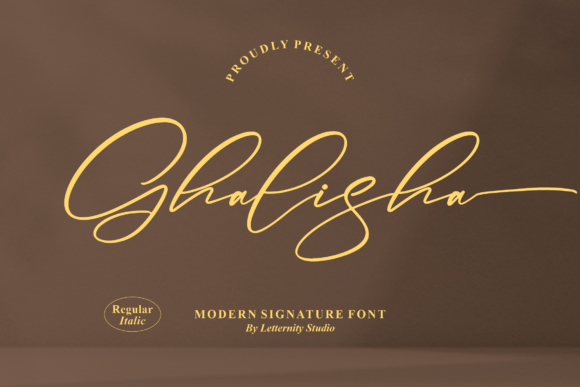
Unleashing the Magic of Ghalisha Font
As a designer, have you ever stared at a blank canvas, waiting for inspiration to strike? You’re not alone. The blank page can be intimidating, but what if it held the key to unlocking a beautiful, high-quality design? For many creatives, the perfect font can be that spark that sets their imagination ablaze.
Enter Ghalisha Font, a free-flowing script font designed to elevate packaging products, invitation cards, flyers, mockups, event posters, and more. This versatile font is perfect for designers who want to add a touch of sophistication and elegance to their work. With its PUA encoding, accessing all the glyphs and swashes is a breeze, giving you the freedom to experiment and push the boundaries of your creativity.
Whether you’re a seasoned pro or just starting out, the Ghalisha Font is an invaluable addition to your design toolkit. Its unique style and versatility make it an essential asset for any designer looking to take their work to the next level.
Ghalisha Font Key Features
- Unique Characteristics: Ghalisha Font features a unique blend of modern and traditional elements, with intricate details and elegant lines, making it suitable for various design projects.
- Language Support: The font supports a wide range of languages, including English, Arabic, and other languages that use the Latin and Arabic scripts.
- Scalability: Ghalisha Font is highly scalable, allowing it to be used effectively in various sizes and resolutions without compromising its quality and readability.
Review of Ghalisha Font
I recently had the chance to work with Ghalisha Font, and I must say it’s a unique and intriguing typeface. Here’s my honest take on it.
- Ghalisha Font has a distinctive and exotic flair that can add a touch of sophistication to any design project.
- The font’s varied line weights and opentype features allow for a wide range of customization options, making it suitable for both body text and headings.
- The font’s aesthetic is perfect for projects that require a sense of mystery and intrigue, such as fantasy novels, sci-fi movies, or video games.
- The font’s unconventional design may not be to everyone’s taste, and it may require some getting used to.
- Ghalisha Font may not be the best choice for projects that require a clean and minimalist aesthetic.
- The font’s irregular letterforms may make it challenging to read in certain contexts, such as in small font sizes or with low contrast backgrounds.
Overall, I think Ghalisha Font is a great choice for designers who want to add some flair and personality to their projects. While it may not be suitable for every design task, it’s definitely a unique and interesting typeface that can help designers stand out from the crowd.
Common Use Cases for Ghalisha Font
The Ghalisha Font is ideal for use in creative and artistic projects, such as graphic design, typography, and branding. It can also be used in digital and print media, including websites, social media, and marketing materials.